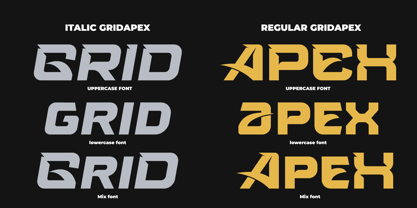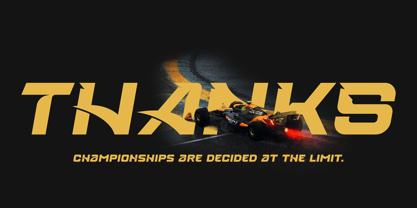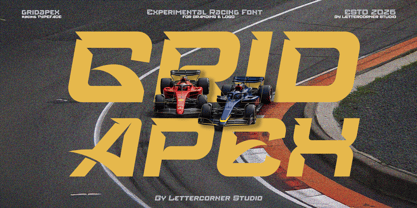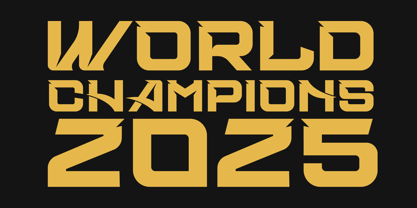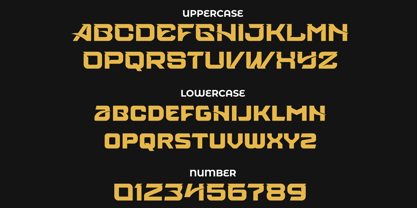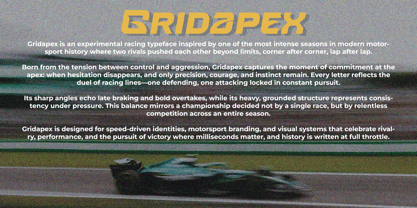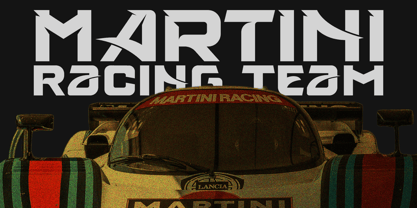
Gridapex
La famille de polices Gridapex a été conçue par Muhammad Afif Ersya et publiée par Mevstory Studio. Gridapex contient 2 styles et options de package familial. En savoir plus sur cette famille
RIDAPEX – Experimental Racing Display Typeface Gridapex is an experimental racing display typeface inspired by the intensity of modern motorsport—where championships are decided at the limit, and every apex matters. Designed with speed, precision, and rivalry in mind, Gridapex blends sharp angular cuts with a bold, grounded structure to capture the feeling of high-speed duels and late-braking moments. Its italic, forward-leaning stance reflects constant motion, aggression, and commitment on track. The typeface draws inspiration from competitive racing culture—clean enough for professional motorsport branding, yet aggressive enough for high-impact visuals. Each letterform is crafted to feel mechanical, aerodynamic, and decisive, echoing the tension between control and attack that defines elite racing. Gridapex is ideal for racing-themed projects, motorsport branding, esports, gaming titles, posters, headlines, logos, apparel, and any design that demands speed-driven character and strong visual presence. Features Bold racing display typeface Italic, speed-oriented construction Strong legibility at large sizes Designed for logos, headlines, and branding Perfect for motorsport, automotive, esports, and action-driven visuals Best Use Gridapex works best at large sizes for: Motorsport & racing branding Game titles & esports identities Posters, banners, and promotional graphics Apparel, decals, and vehicle liveries